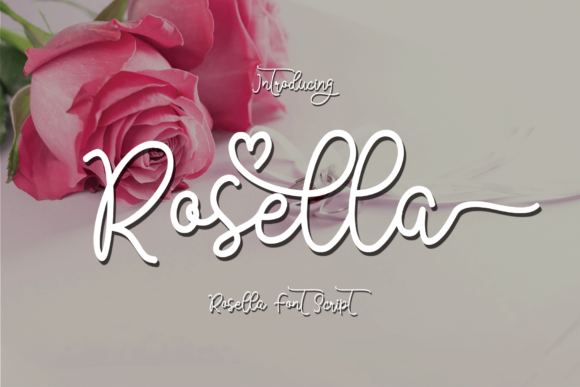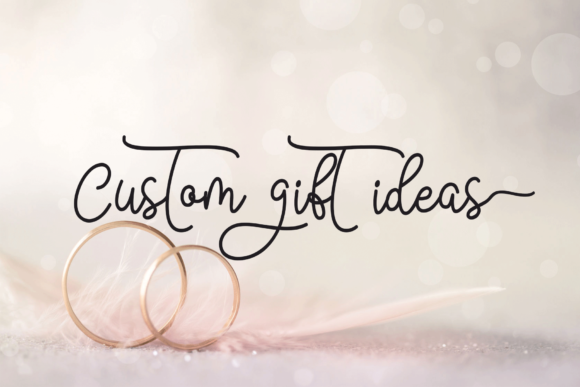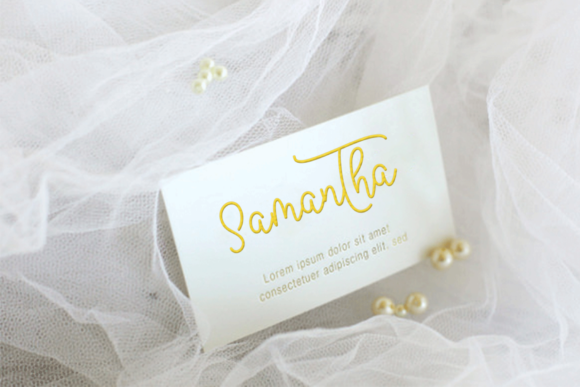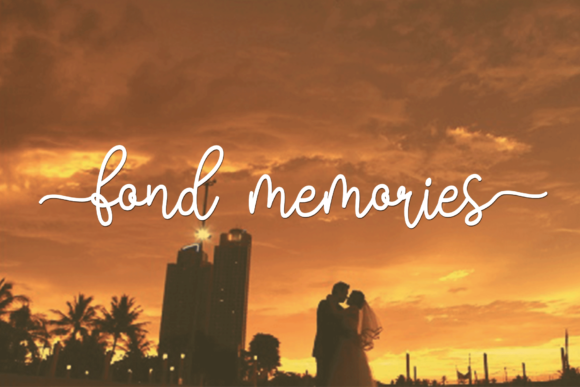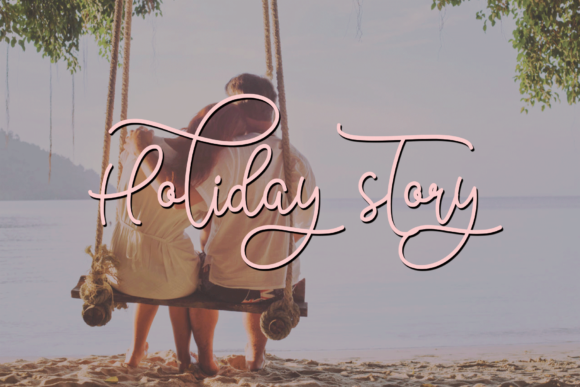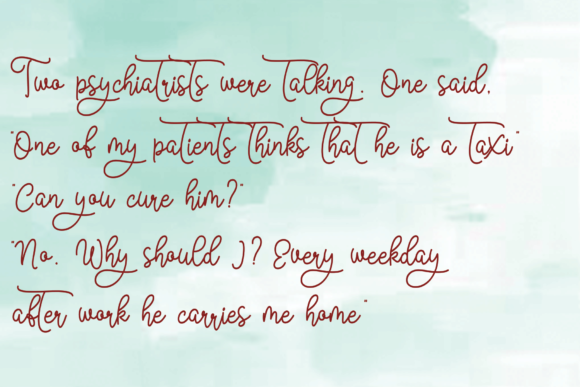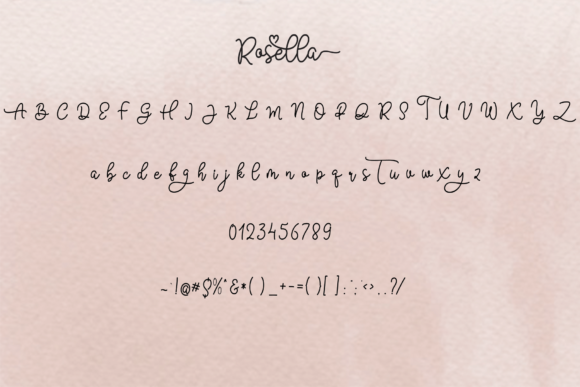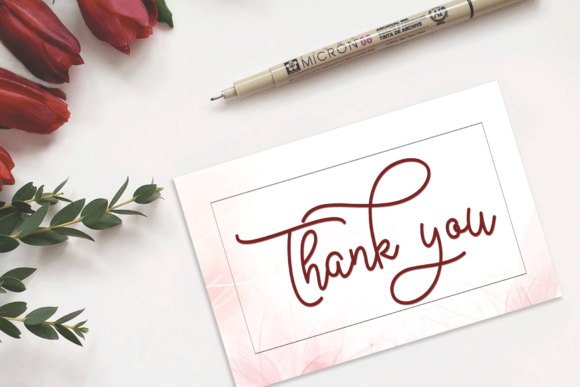
Rosella Script Font
About Rosella Script Font
Rosella is purely handwritten, which gives this beautiful font a rather heartfelt and authentic feel. Use it to make any crafting project stand out!